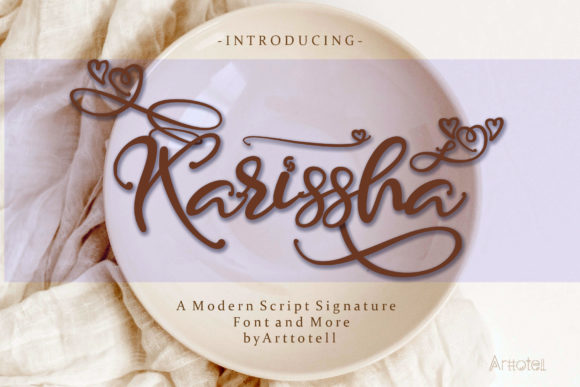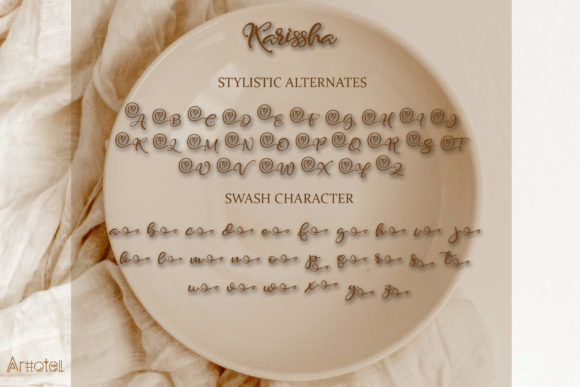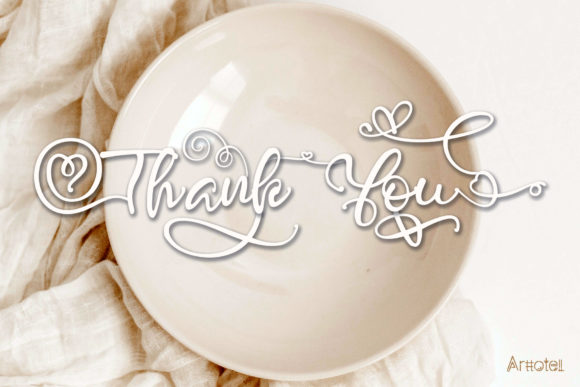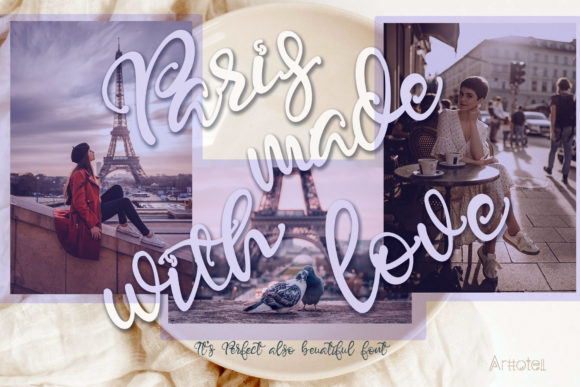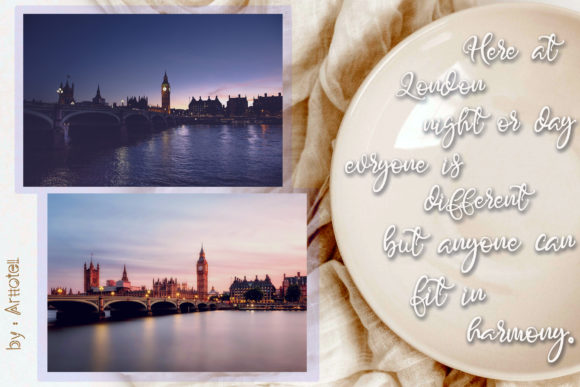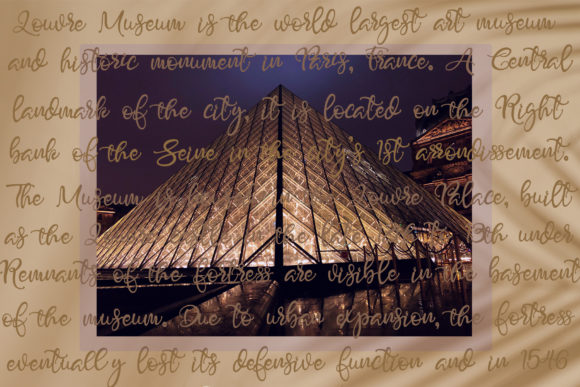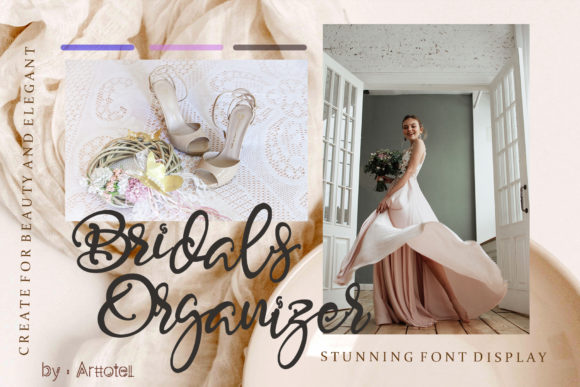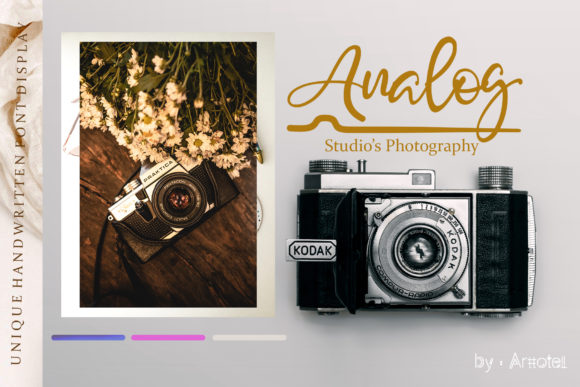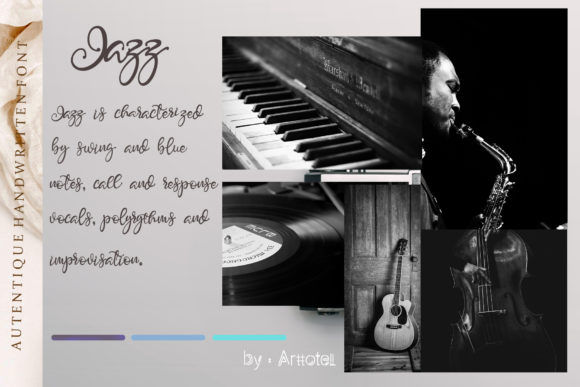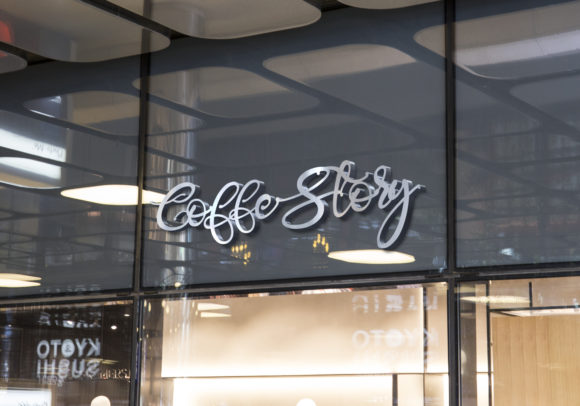
HomeScript FontsKarrisha Font Script Fonts Karrisha Font FacebookXPinterestWhatsApp Karrisha Font Poster 2 Karrisha Font Poster 3 Karrisha Font Poster 4 Karrisha Font Poster 5 Karrisha Font Poster 6 Karrisha Font Poster 7 Karrisha Font Poster 8 Karrisha Font Poster 9 Karrisha Font Poster 10 Karrisha Font Poster 11 About Karrisha Font Karrisha is a sweet and strong script with a bold vibe. Use it to add a strong flavor to any design idea! DOWNLOAD NOW People also explored Bestons Font Handbook Font Rhitless Font Christmas Flower Font Goritesa Font The Fageld Font Monschone Font Thick Marker Font Balisten Font 377 0 TagsKarrisha Font Previous articleBlessing FontNext articleBelsmont Font LEAVE A REPLY Cancel reply Comment: Please enter your comment! Name:* Please enter your name here Email:* You have entered an incorrect email address! Please enter your email address here Website: Save my name, email, and website in this browser for the next time I comment. Personal Use Free BD Pipe Personal Use Free Read more about this font Heart Personal Use Free Read more about this font Bashira Personal Use Free Read more about this font Loving You Personal Use Free Read more about this font BLOG Fonts That Capture the Spirit of New York City New York City is more than just a place—it’s an experience, a rhythm, a visual language... Where to Buy American Fonts Online in 2024 How to Install and Use Fonts on Windows, macOS, and Web Projects Best Fonts for YouTube Videos: Make Your Thumbnails Stand Out